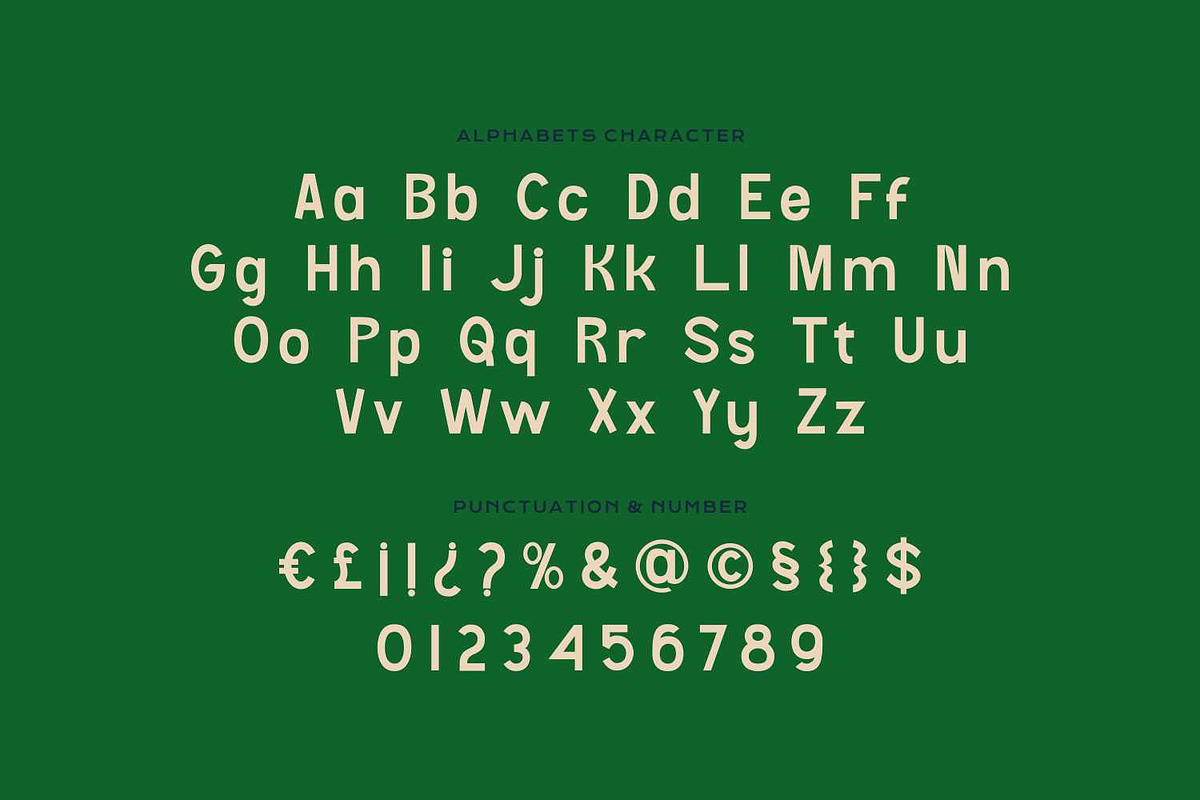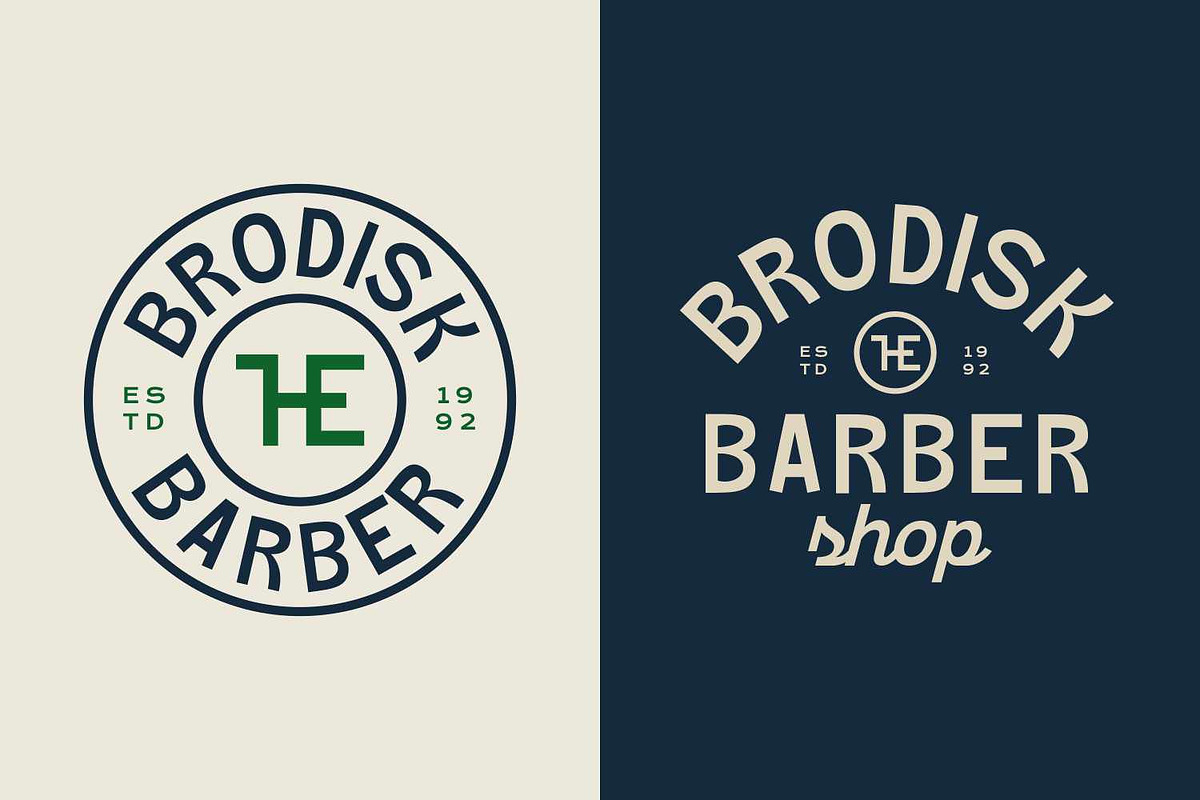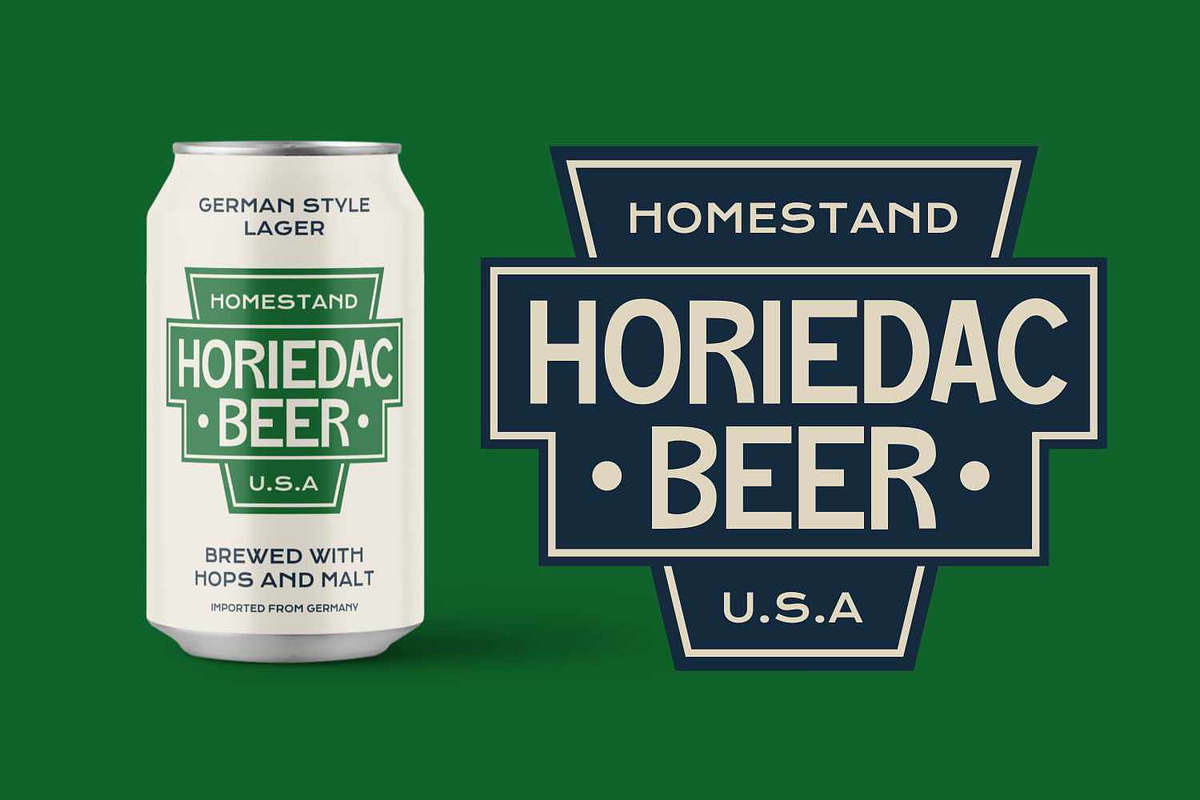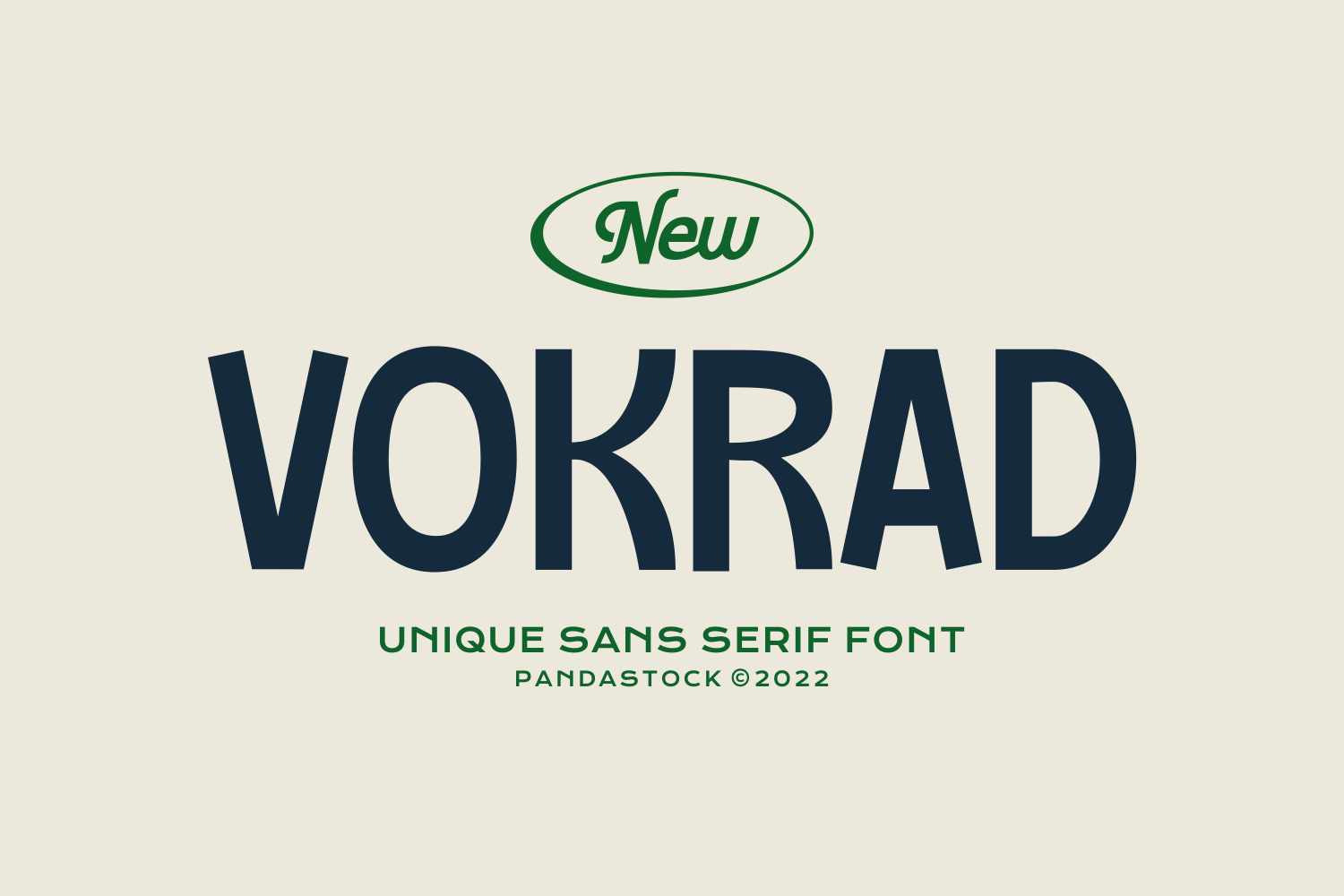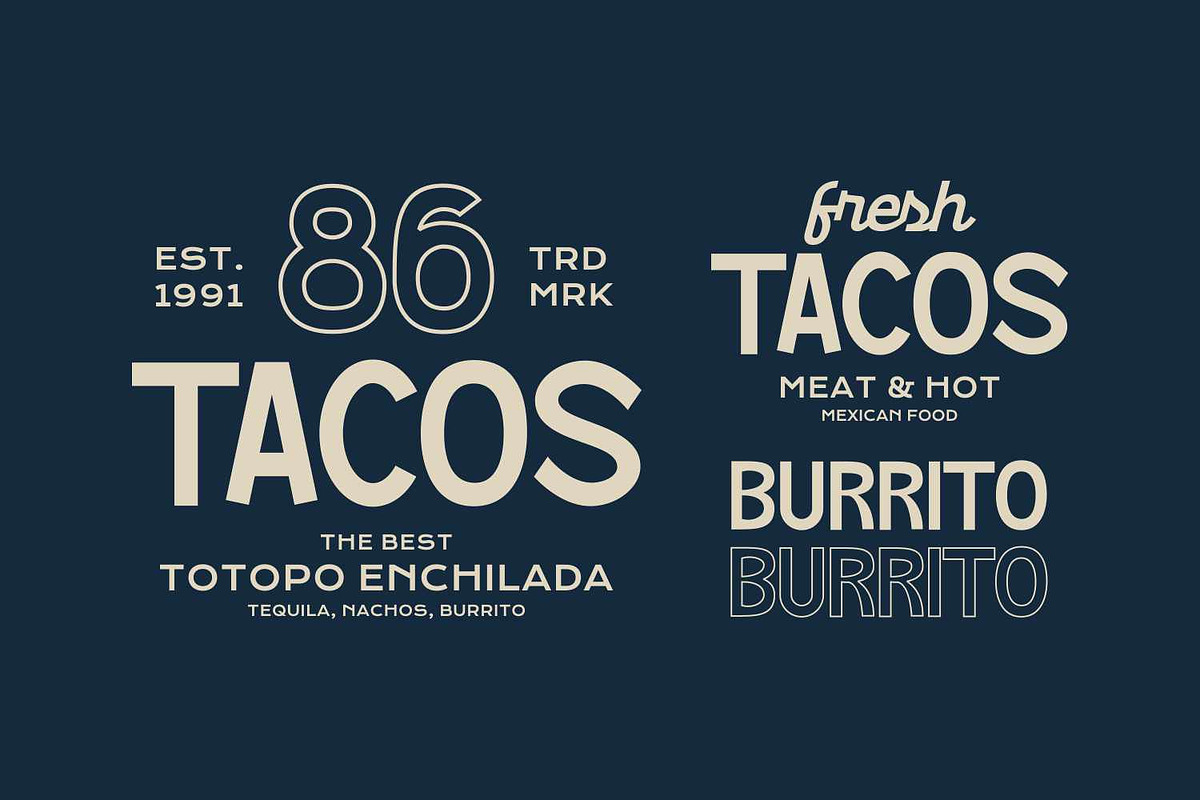
Vokrad - Minimal Sans Font
Introducing Vokrad, a minimal sans serif font that effortlessly blends vintage charm with modern clarity.
- Uppercase and Lowecase Characters.
- Numerals and Punctuations.
- Alternates and Ligatures.
- Multilingual Support.